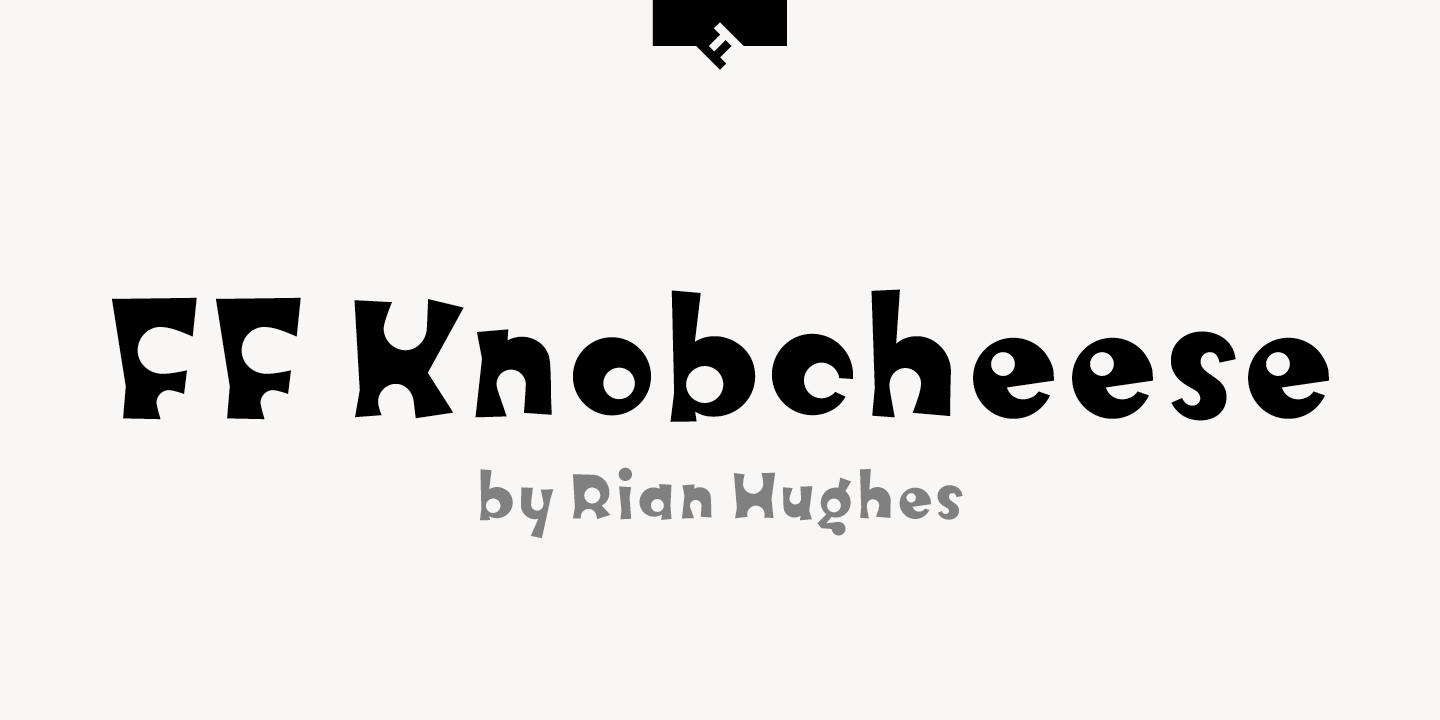
FF Knobcheese Font is perfect for quirky branding projects, playful children's books, creative advertising campaigns, fun product packaging, comic book designs, casual restaurant menus, craft beer labels, artistic poster designs, unconventional logos, and experimental typography projects that require distinctive character with whimsical personality and memorable visual impact.
What makes FF Knobcheese Font so exciting is its bold departure from conventional typography through its distinctive rounded forms and playful character structure. This font features unique bulbous letterforms that create an instantly recognizable visual signature, combining artistic flair with excellent readability. The unconventional design approach challenges traditional typography norms while maintaining functionality, making it perfect for brands that want to stand out from the crowd with memorable and distinctive typographic choices.
The FF Knobcheese Font family includes multiple weights and styles: Light, Regular, Medium, Bold, Black, and corresponding Italic variants. Each weight maintains the signature quirky character while offering comprehensive flexibility for creative design applications and unconventional typographic hierarchies.
Creative professionals consistently choose FF Knobcheese Font Free Download for projects requiring distinctive typography that breaks conventional design rules. Whether you're developing unique brand identities, creating eye-catching advertising materials, designing experimental publications, or crafting memorable packaging designs, this font delivers exceptional personality and visual distinction. The font's comprehensive character set supports creative applications while ensuring optimal performance across digital and print media, making it an essential tool for designers working on innovative projects that demand unconventional, memorable, and artistically bold typography solutions with distinctive character.